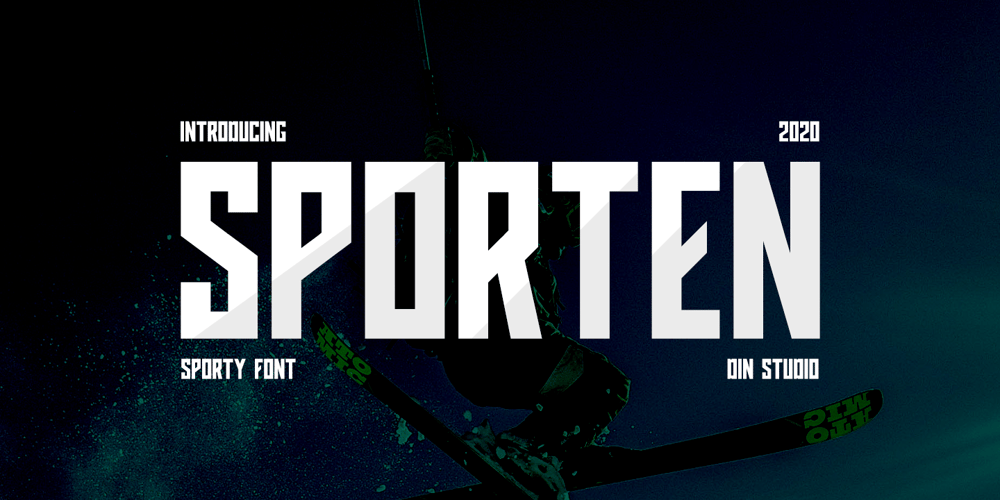
Sporten Font Family was designed by Donis Miftahudin and published by Din Studio. Sporten contains 1 styles and family package options. Sporten is a classic sport font. Made for any professional project especially that related to the sports. Beside that, this font can be used for printing, branding and quotes.Features: PUA Encoded Multilingual Support Numerals and Punctuation Bonus Esport Logo Thank you for downloading premium fonts from Din Studio